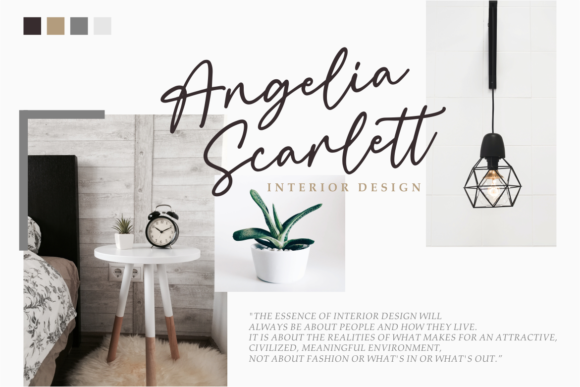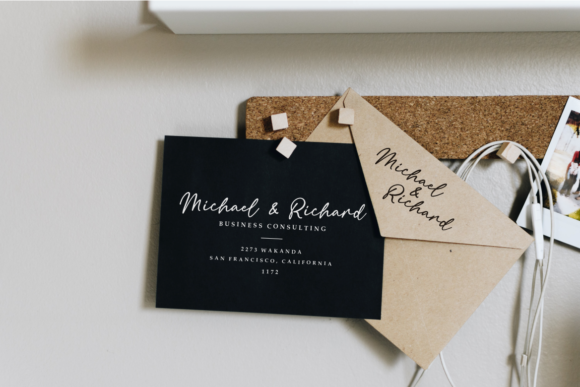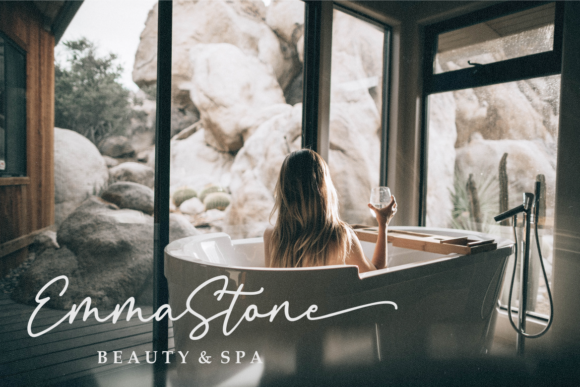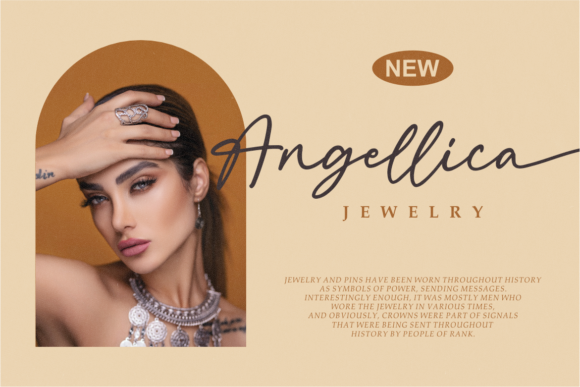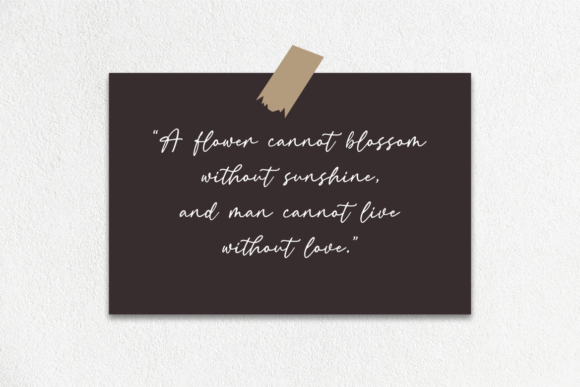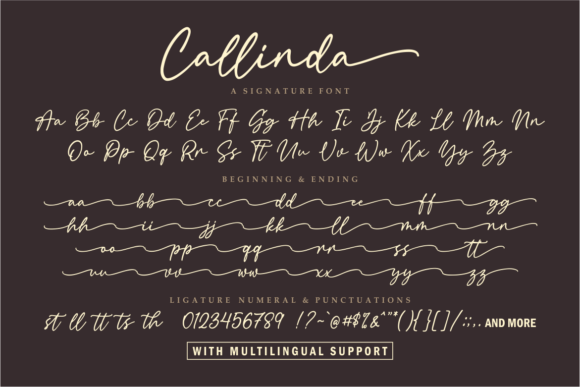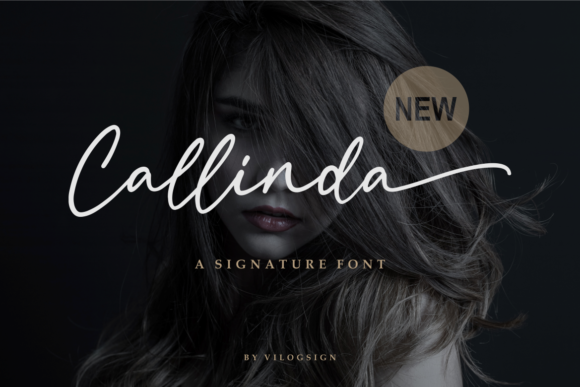
Introducing Callinda Font: Elevate Your Designs with Elegance
Are you a designer or crafter looking for a font that exudes sophistication and refinement? Look no further than Callinda Font, an elegant script font designed to add a touch of class to your projects. With its delicate and balanced look, Callinda is the perfect choice for those seeking a font that’s not too thin and not too thick, but just right.
The Story Behind Callinda Font
Callinda Font was crafted with the intention of creating a font that’s both beautiful and versatile. Its design team aimed to create a script font that’s easy to read, yet elegant and refined. The result is a font that features a very delicate and classy look, making it perfect for a wide range of design projects, from wedding invitations and stationery to branding and advertising materials.
Key Features of Callinda Font
So, what makes Callinda Font so special? Here are some of its key features:
• Delicate and Classy Look: Callinda Font features a very delicate and classy look that’s perfect for designs that require a touch of sophistication.
• Balanced and Varied: The font is designed to be balanced and varied, with a mix of thick and thin strokes that add visual interest to your designs.
• Not too Thin and Not too Thick: Callinda Font strikes the perfect balance between thin and thick fonts, making it easy to read and elegant to look at.
• Versatile: Callinda Font is versatile and can be used for a wide range of design projects, from print materials to digital designs.
Why Choose Callinda Font?
With so many fonts available, why choose Callinda Font? Here are some reasons why designers and crafters love Callinda:
• Elegant and Refined: Callinda Font adds a touch of elegance and refinement to your designs, making them stand out from the crowd.
• Easy to Read: Despite its delicate look, Callinda Font is easy to read, making it perfect for designs that require a clear and concise message.
• Unique and Distinctive: Callinda Font has a unique and distinctive look that’s sure to set your designs apart from others.
How to Use Callinda Font in Your Designs
Callinda Font is easy to use and can be incorporated into your designs in a variety of ways:
• Wedding Invitations and Stationery: Callinda Font is perfect for wedding invitations, stationery, and other paper goods that require a touch of elegance.
• Branding and Advertising: Use Callinda Font to add a touch of sophistication to your branding and advertising materials, such as logos, brochures, and flyers.
• Digital Designs: Callinda Font can be used in digital designs, such as social media graphics, email headers, and website titles.
In conclusion, Callinda Font is an elegant script font that’s perfect for designers and crafters looking to add a touch of sophistication to their projects. With its delicate and balanced look, Callinda Font is versatile and can be used for a wide range of design projects. Whether you’re designing wedding invitations, branding materials, or digital designs, Callinda Font is sure to elevate your designs and make them stand out from the crowd.